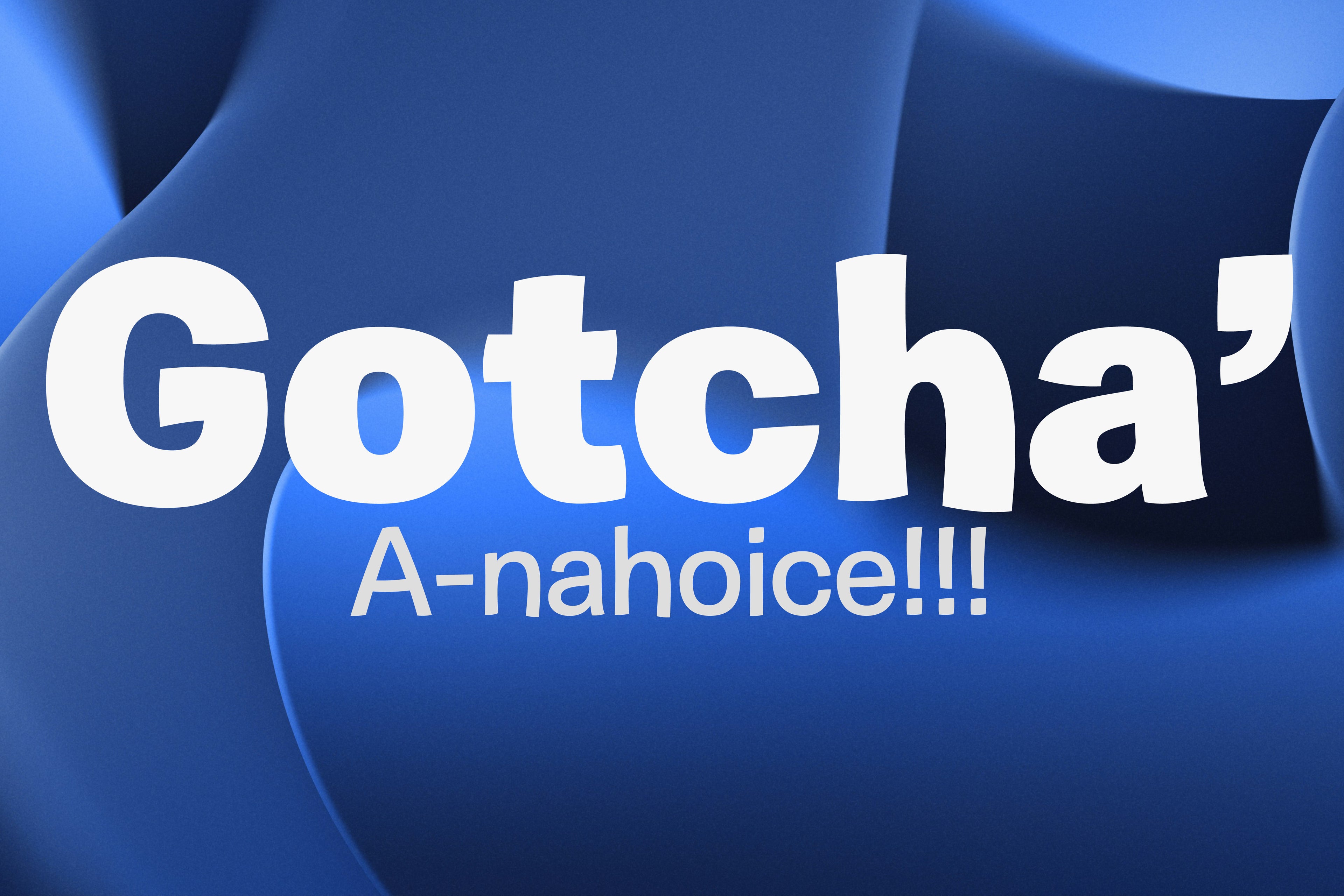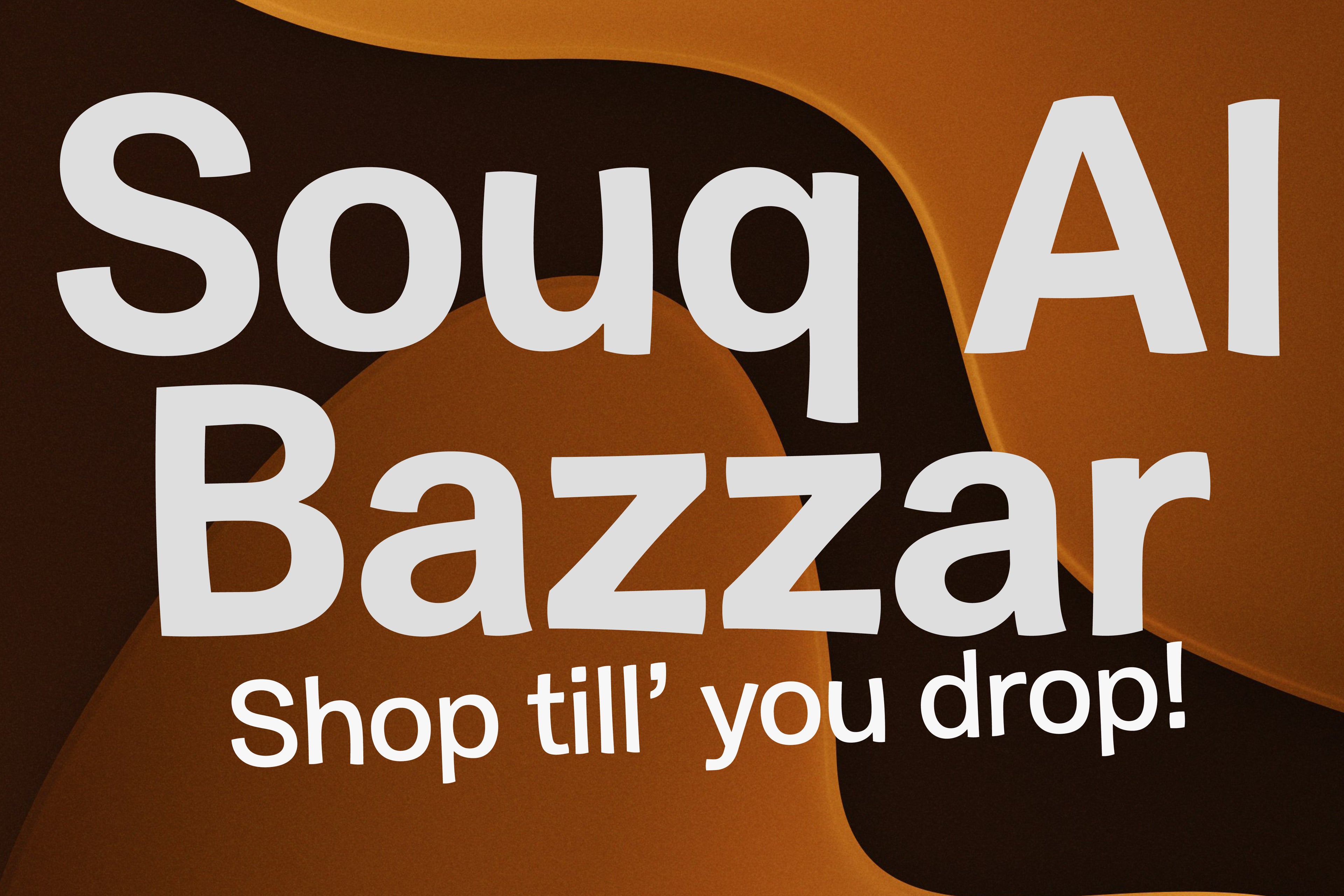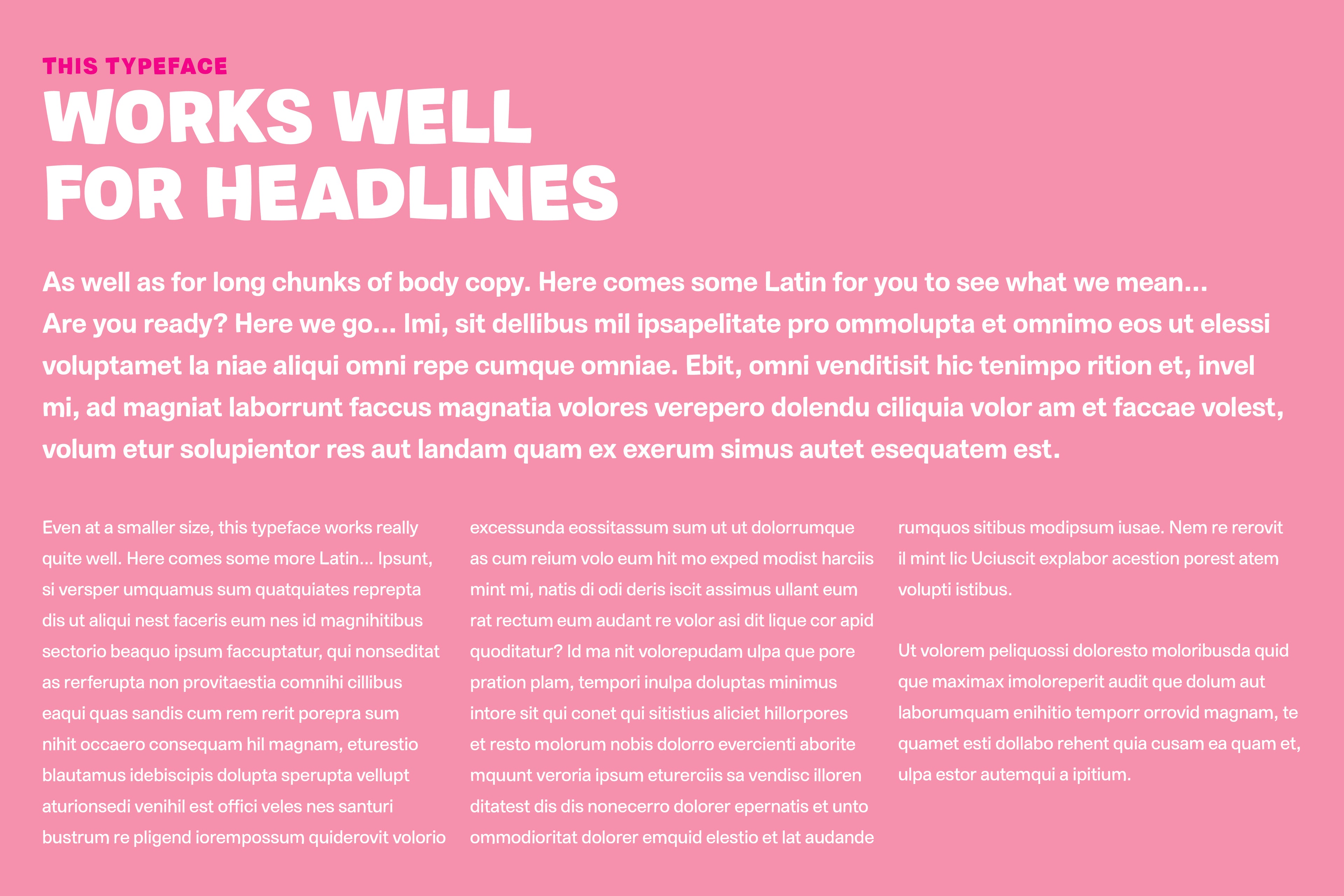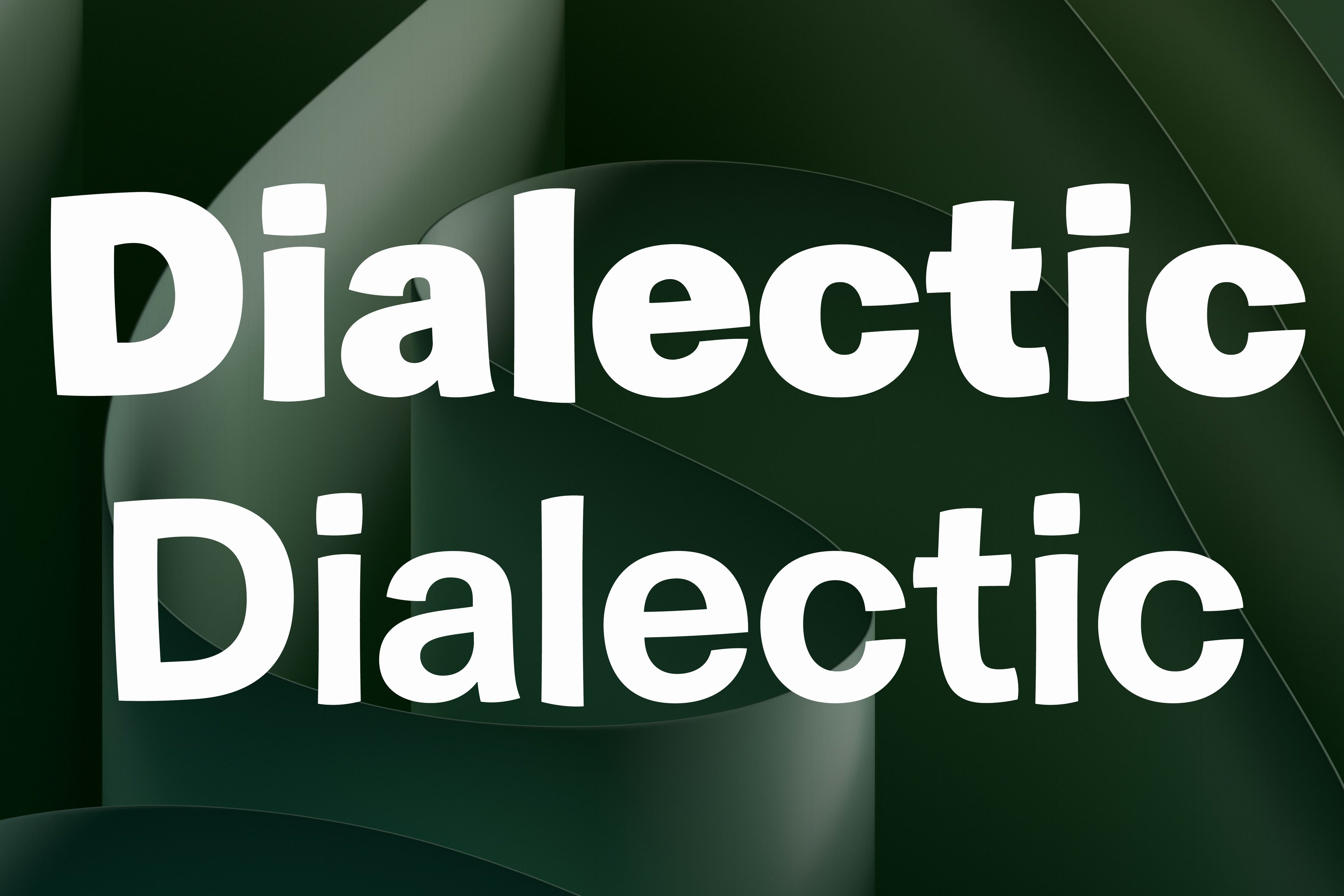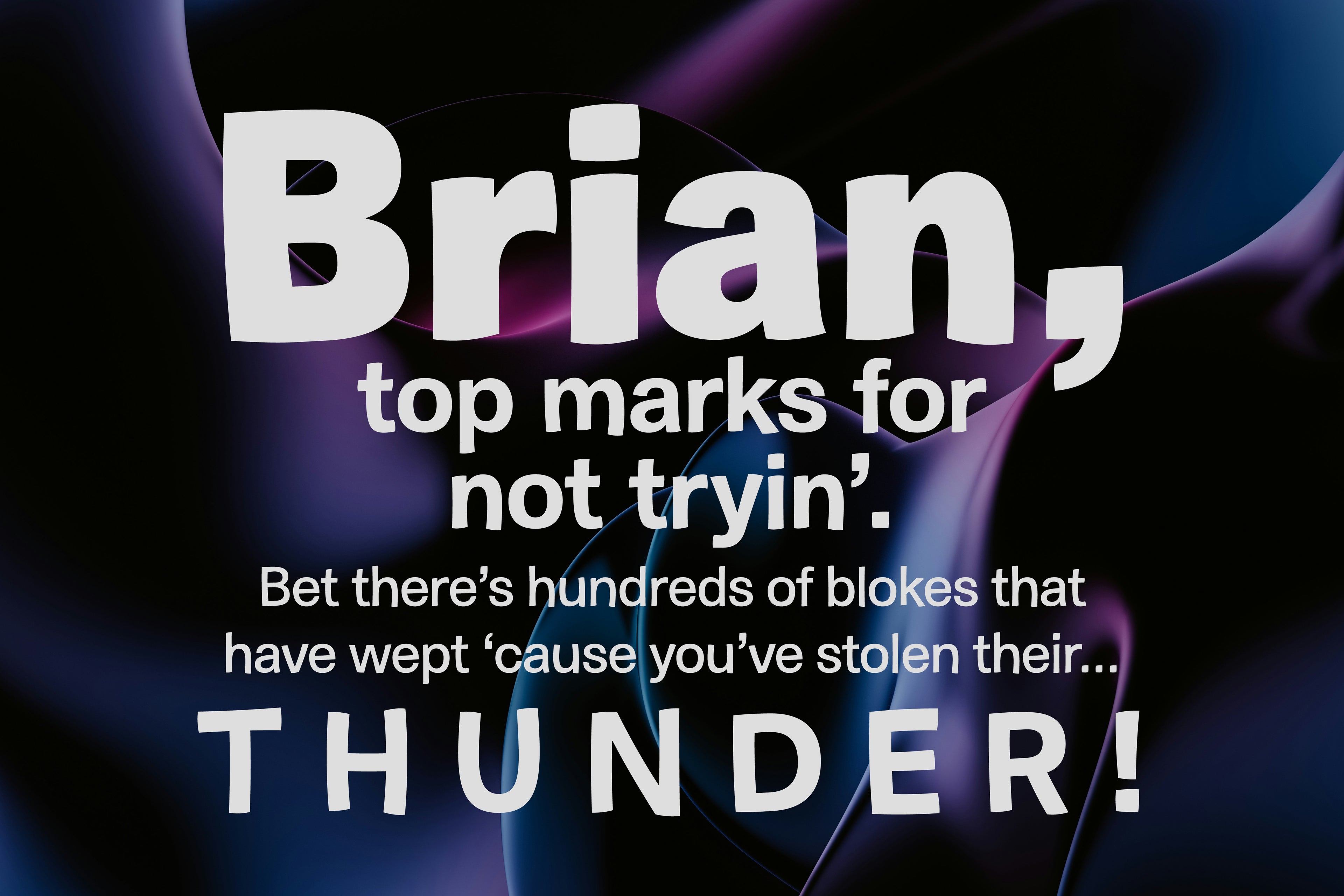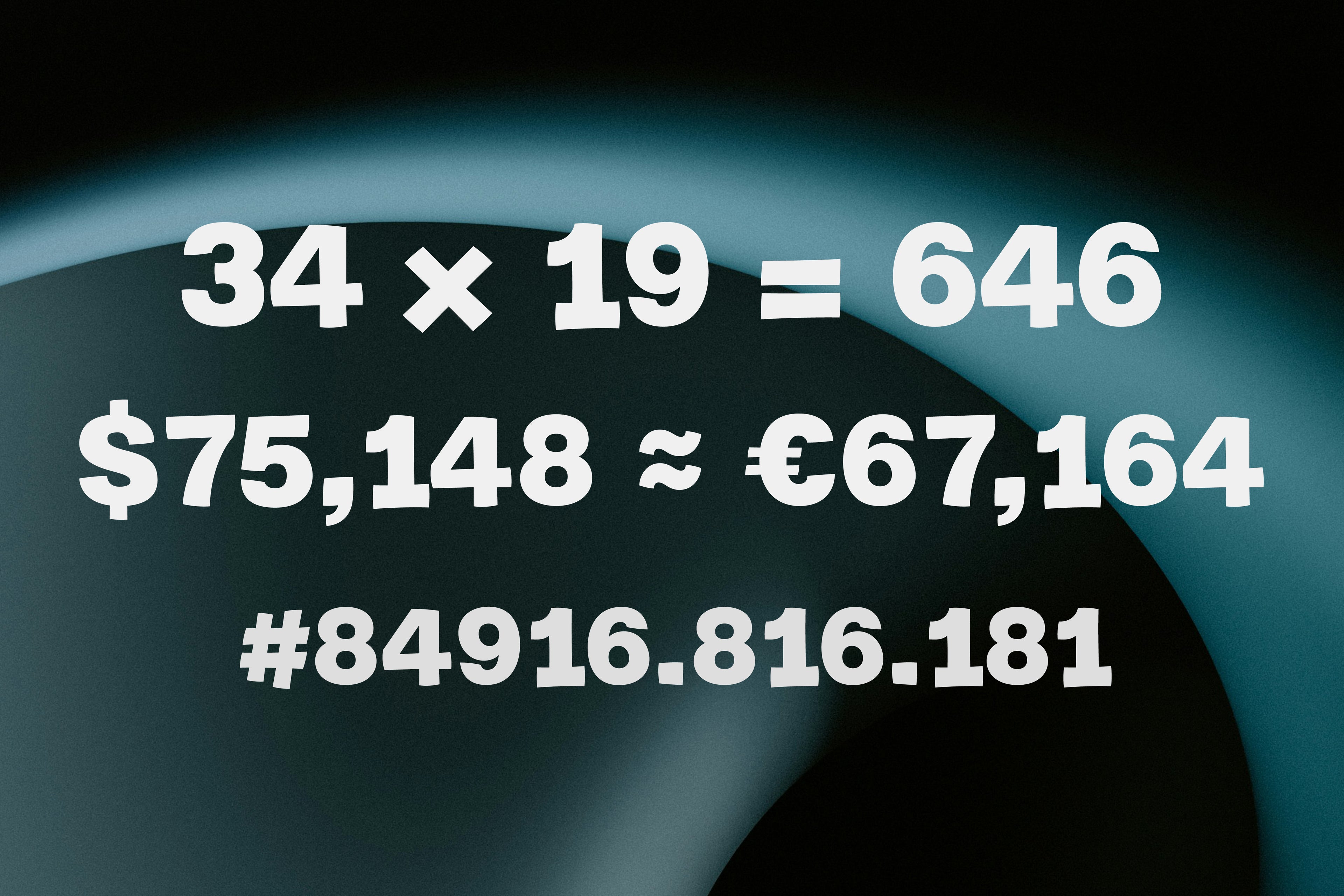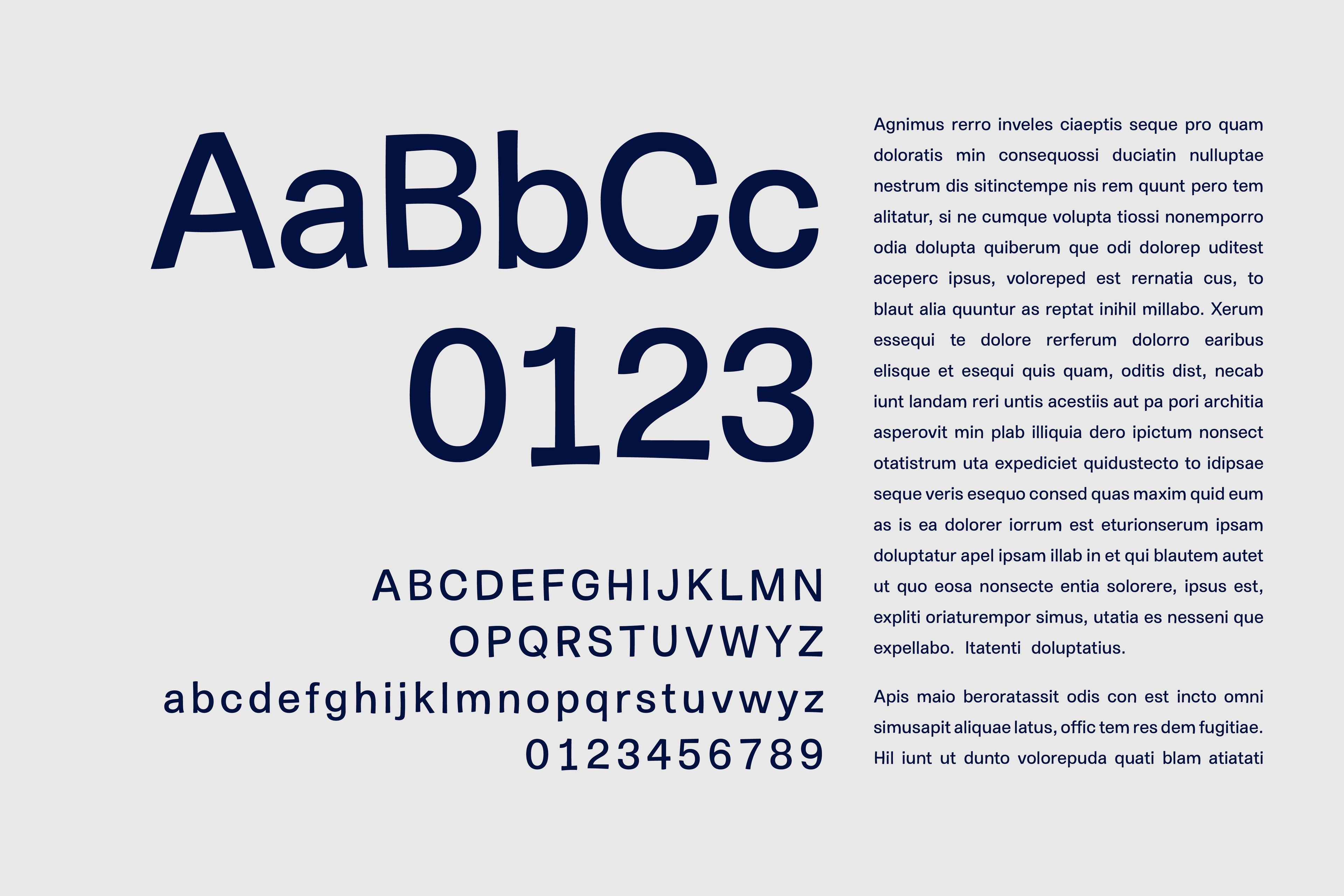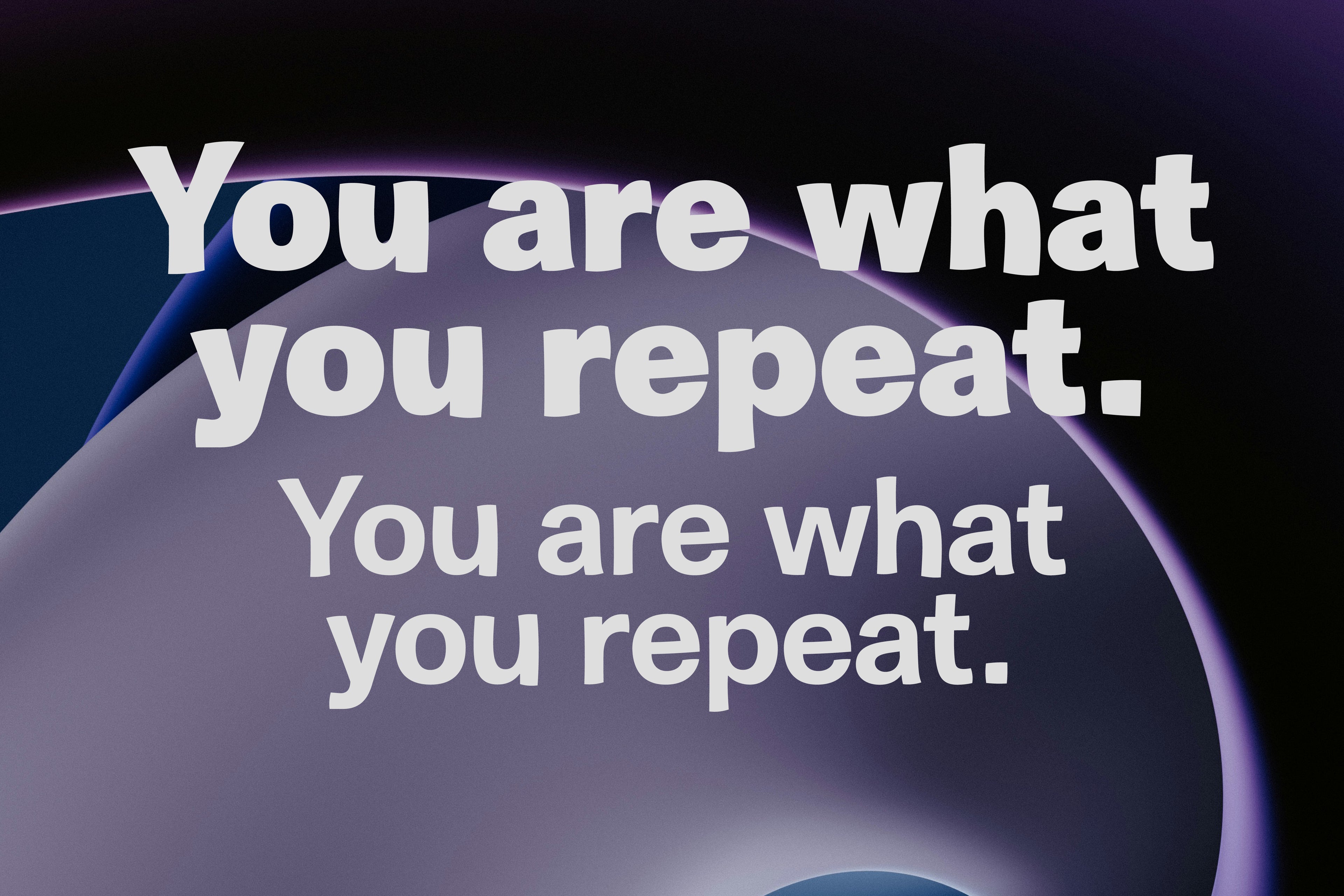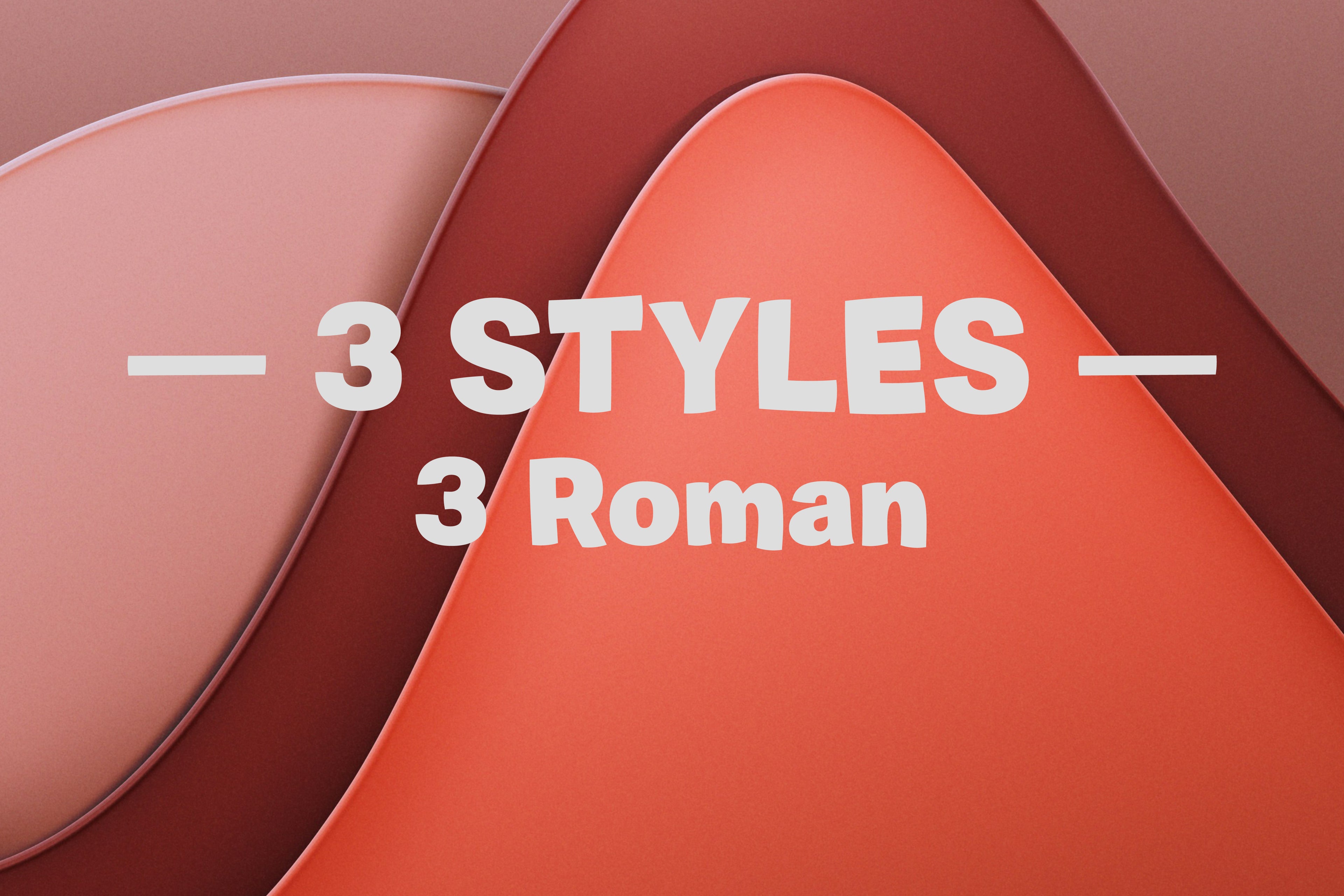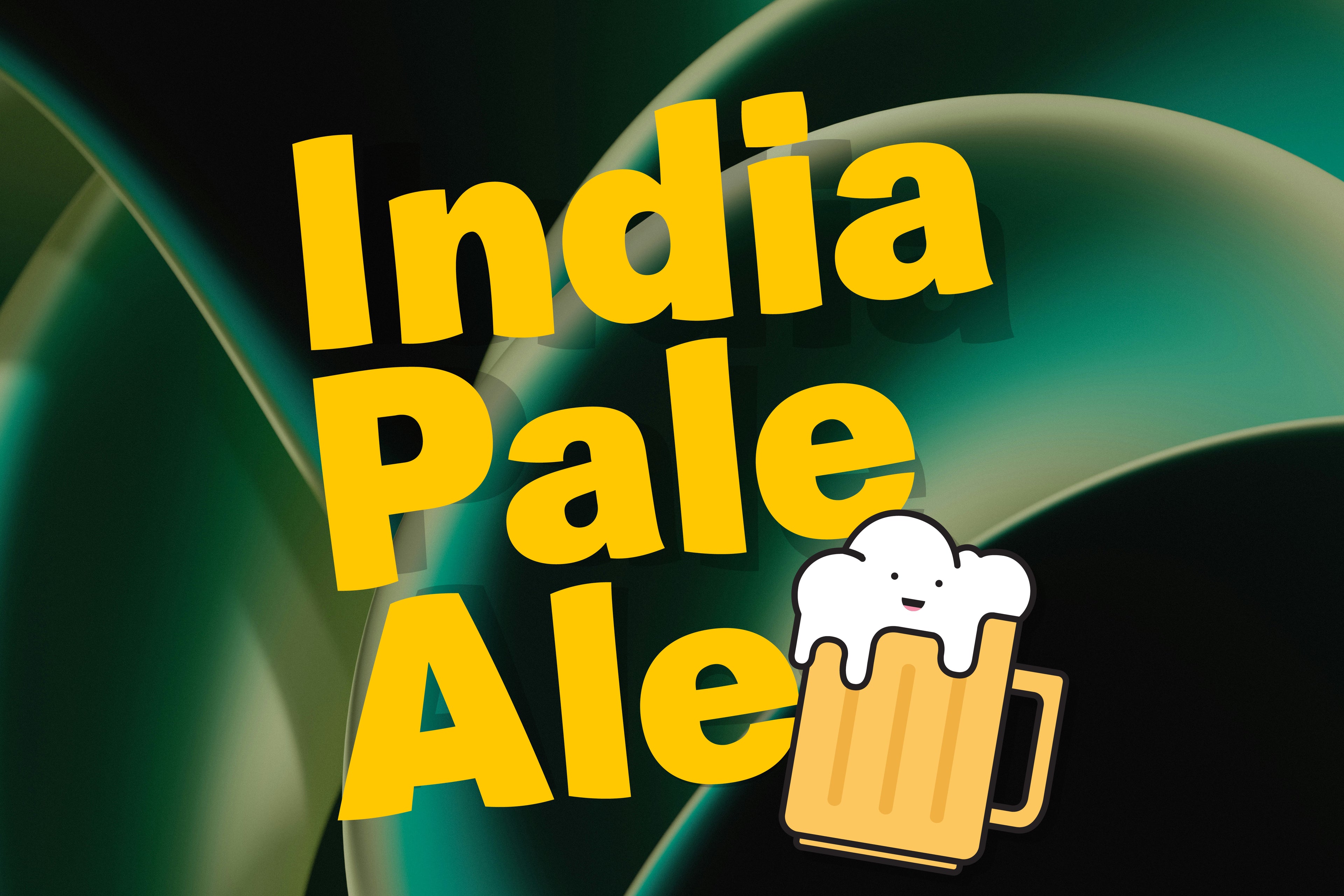
Ludema
Ludema is a very informal and adventurous typeface designed by JAM Type and inspired by the many children’s books and the video games of our youth. Perfectly adaptable to be used in such designs as well on shop floors, Ludema is simply a bit of fun.